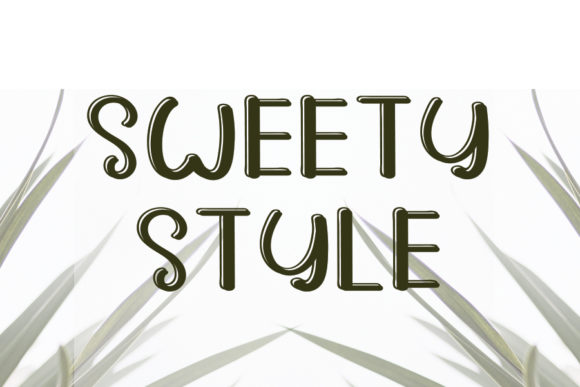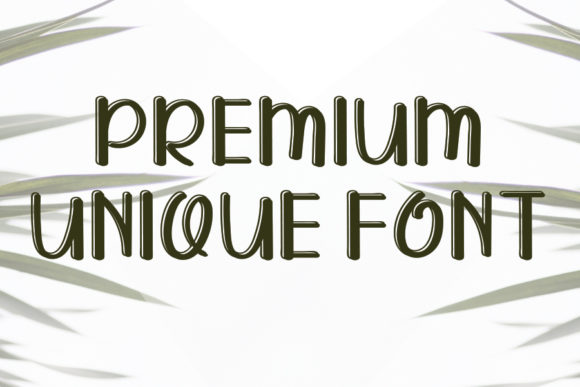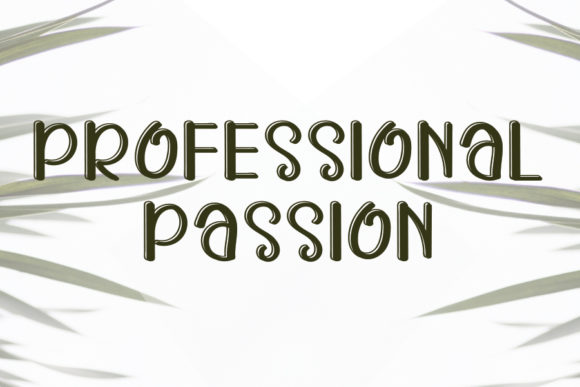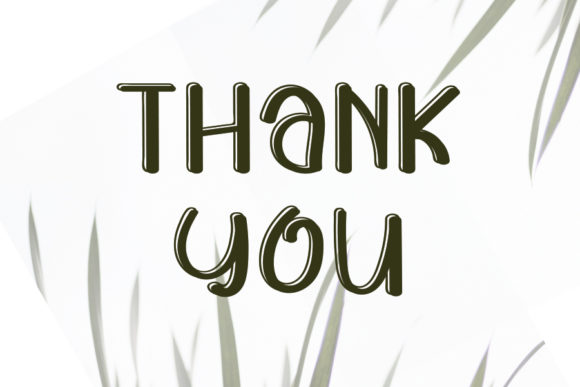
Introduction to Rock Snake Font Font
Fonts play a crucial role in design, and the Rock Snake Font font is a typeface that brings both character and versatility to any project. Whether you’re working on a branding project, a website, or a print design, the Rock Snake Font font offers a unique style that can elevate your work.
Rock Snake is a simple and quirky display font.
It will add an incredibly joyful touch to your designs Add this beautiful font to each of your creative ideas and notice how it makes them stand out.
Key Features of Rock Snake Font Font
Why Choose Rock Snake Font Font?
The Rock Snake Font font is more than just a typeface – it’s a design tool that helps you communicate your message with style and clarity. Its unique character set and versatile design make it suitable for a wide range of applications, from elegant invitations to bold headlines.
With its carefully crafted letterforms and balanced proportions, the Rock Snake Font font ensures readability and visual appeal across all mediums.
What makes Rock Snake Font font special?
The Rock Snake Font font stands out with its unique design, exceptional readability, and versatility across various design applications.